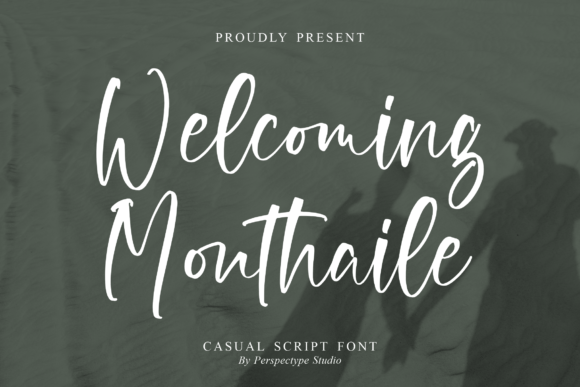
Introducing Welcoming Monthaile Font, the epitome of handwritten bliss, crafted with meticulous care by Perspectype. This script font is more than just a collection of letters; it's a journey through the realm of elegance, where every stroke tells a story.
With its whimsical curves and flowing lines, Welcoming Monthaile invites you to embrace your creativity like never before. Its casual charm is perfect for those seeking a touch of uniqueness in their designs, be it logos, branding projects, homeware designs, product packaging, or even personal touches like mugs and t-shirts.
Imagine your words dancing across the page in the graceful embrace of Welcoming Monthaile. Its versatility knows no bounds, seamlessly adapting to a wide range of projects, from heartfelt quotes to eye-catching posters and shopping bags. Book covers, name cards, and invitation cards take on a new life, exuding a charm that is both timeless and captivating.
With Welcoming Monthaile, the possibilities are endless. Unleash your imagination and watch as your designs blossom into works of art. Its delicate beauty adds a touch of sophistication to labels, photography, and watermarks, while its playful spirit brings life to special events, making them truly unforgettable.
Step into the world of Welcoming Monthaile and discover a world of endless creative possibilities. Let your designs shine with a font that embodies elegance, versatility, and a touch of whimsy. Embrace the beauty of handwritten bliss and make your mark on the world, one letter at a time.